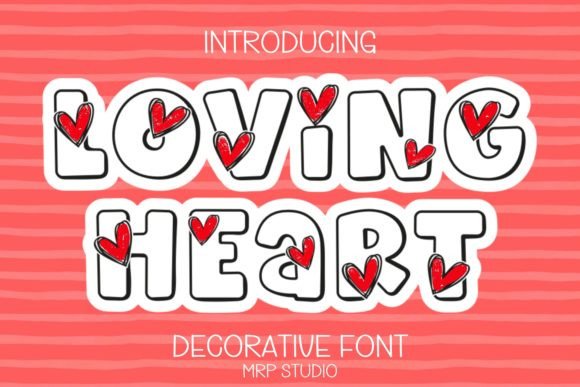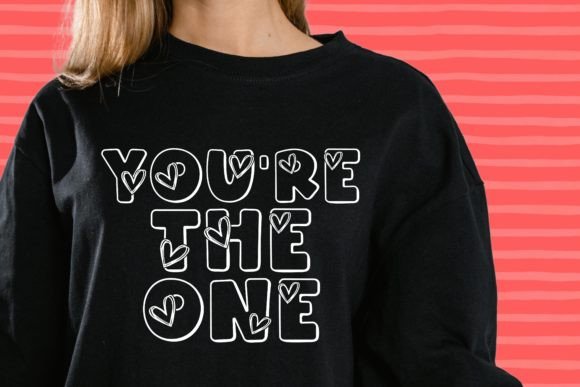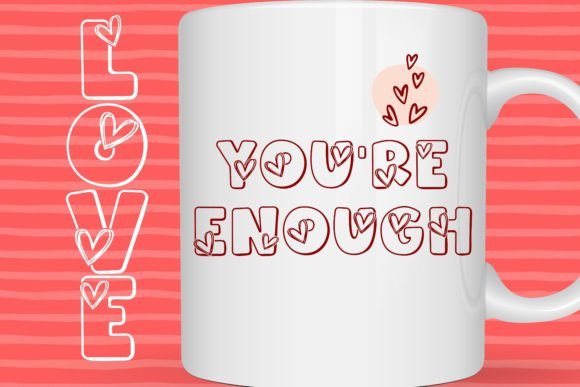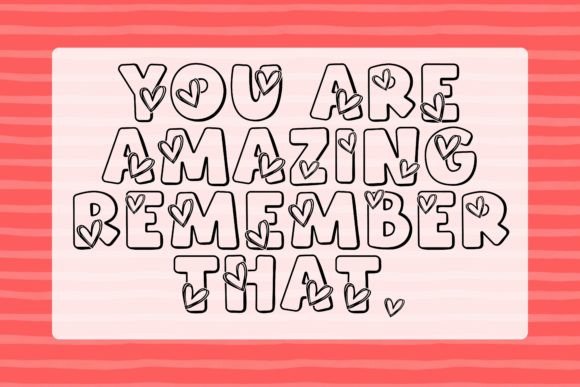
Loving Heart Font
About the Loving Heart Font
Make a bold statement with Loving Heart Font, a powerful and memorable font. Loving Heart is designed in a cute and adorable decorative font style. It would be awesome to your lovely Project and also your child-related project such as back to school, birthday party decoration and much more to any topic which need bright and fun touch. Let’s try it and add it to your creative ideas and notice how it makes them stand out!
Loving Heart’s playful design is ideal for headlines, short text blocks on invitations or greeting cards, and branding for children’s products or businesses emphasizing fun and approachability. It works exceptionally well in packaging design for sweets, toys, or other lighthearted products. However, avoid using it for body text or UI elements; its decorative nature compromises readability in extended use.
Its charming personality pairs well with clean sans-serif fonts like Open Sans for a balanced contrast, or a more geometric sans-serif such as Futura for a modern twist. For a slightly more sophisticated feel, consider pairing it with a delicate script font like Great Vibes for added elegance in wedding stationery or other special occasion materials.
Loving Heart’s overall personality is cheerful and friendly, making it a strong choice for projects that need a bright and approachable aesthetic. The font projects a sense of youthful energy and fun, ideal for conveying a light-hearted and welcoming brand message.
Loving Heart Font Usage Examples
Loving Heart Font Example